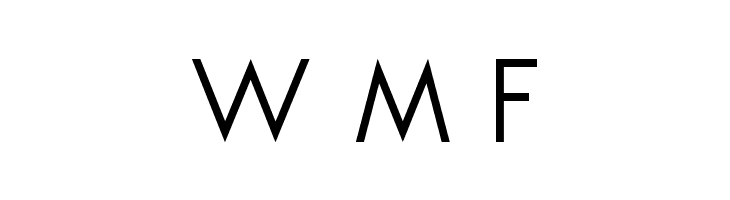
Arista 2.0 Light Font
A modern, rounded sans-serif font with a minimalist design.
Days One Font
A bold, modern sans-serif font with rounded edges and consistent stroke thickness.
Amiri Bold Font
A bold, classic serif font with strong, authoritative strokes and elegant serifs.
Peppa Pig Medium Font
A playful, hand-drawn font with rounded, irregular strokes.
Reynold Art Deco Font
An elegant, geometric font with Art Deco influences, featuring elongated, narrow letterforms.
Urdu Font
A bold, modern Urdu script font with strong, consistent strokes.
Bohemian typewriter Font
A vintage typewriter-style font with bold, textured characters.
Kap Regular Font
A playful, hand-drawn style font with rounded, irregular letterforms.
Babylon Industrial Font
A bold, futuristic font with geometric shapes and sharp angles.
Chomsky Font
A bold, blackletter font with intricate, gothic-inspired letterforms.
Alchemy Font
A collection of intricate alchemical symbols with historical significance.
New Kannan Text Font
A clean and modern Tamil font with smooth strokes and clear legibility.
Market Regular Font
A bold, playful font with thick, rounded strokes and a hand-drawn feel.
Byron Font
A fluid and expressive handwritten cursive font.
Beclave Bold DEMO Regular Font
A bold, modern font with strong, thick strokes and a slightly condensed style.
K22 Didoni Swash Font
A decorative typeface with elegant swashes and high contrast strokes.
Folks-Heavy Font
A bold, rounded font with a playful and modern aesthetic.
Brady Bunch Font
A playful, bold font with whimsical and energetic character shapes.
[z] Arista Font
A modern, bold font with rounded edges and a playful style.